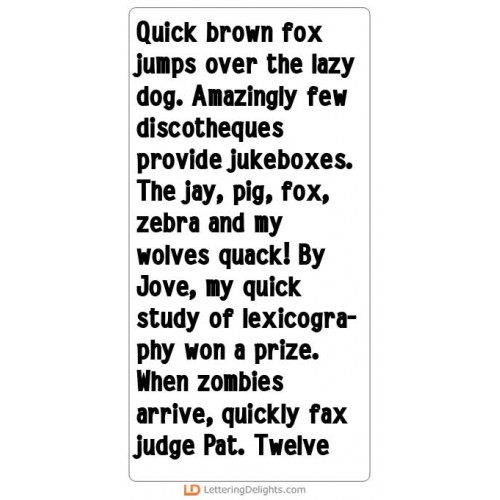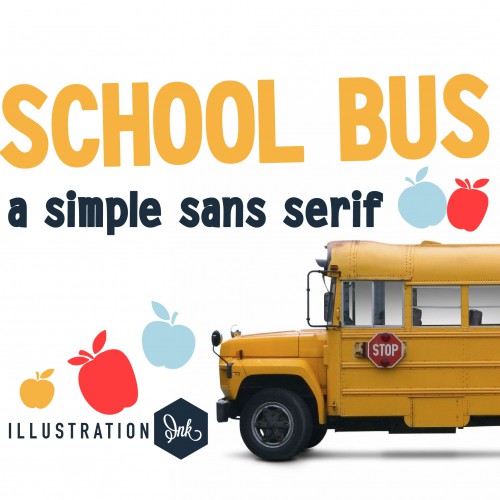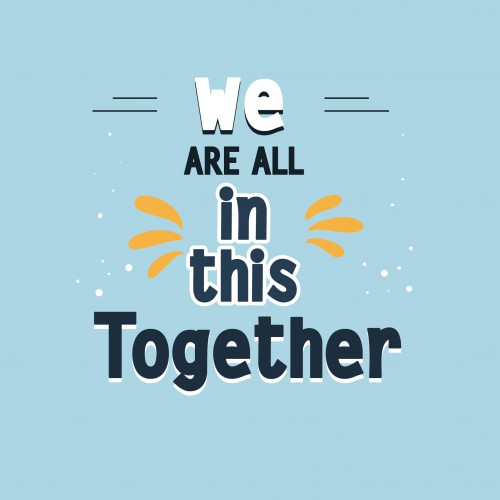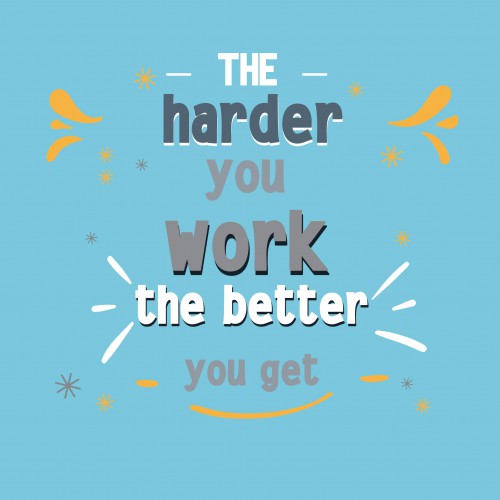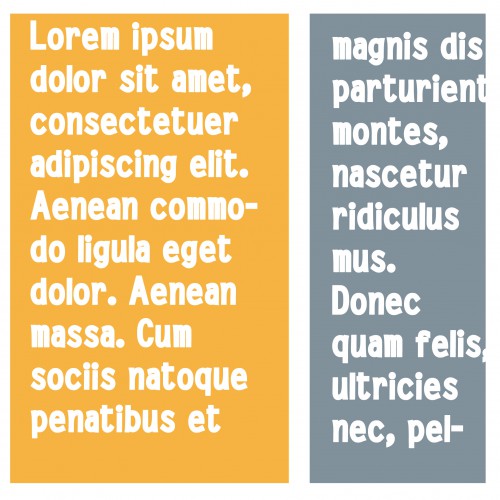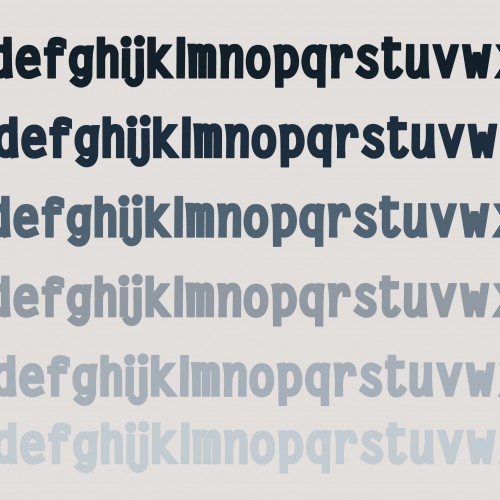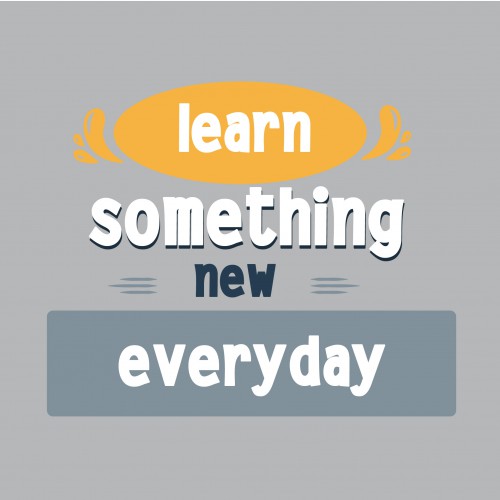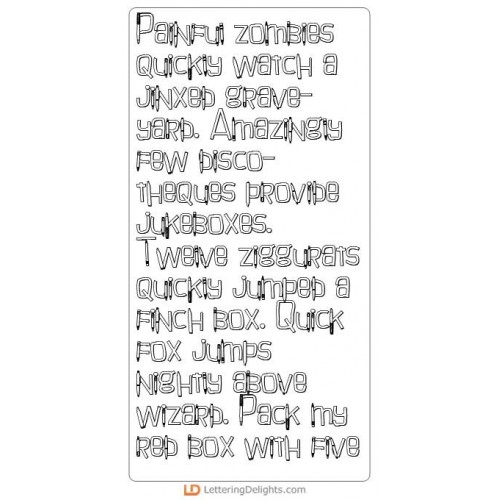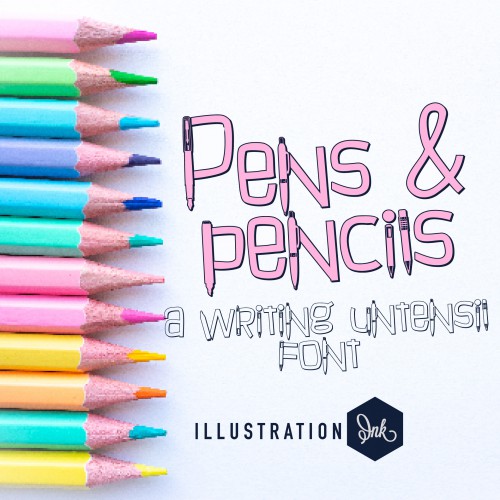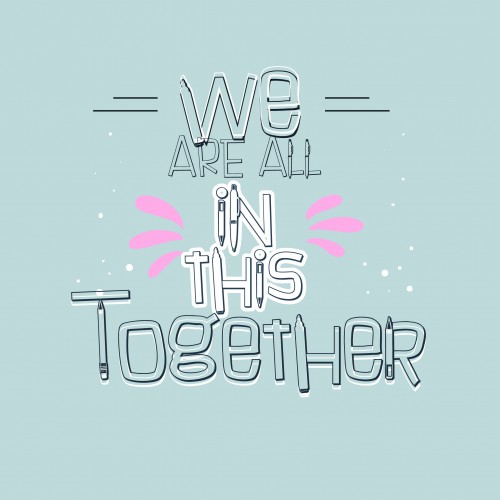
School's Out - Font Bundle
ZP School Bus Bold - FN
This bold sans serif is the same font that the use in uppercase on school buses...
ZP Pens and Pencils 3D - FN
This hand-written font features a variety of pens and pencils throughout and an added 3d shadow...
PN McPencil No 2 - FN
This hand-crafted font features No. 2 pencils throughout...
PN Crayonz 3D - FN
This hand-crafted font is heavily influenced by crayons and has a 3d shadow...
PN Last Day - FN
This hand-crafted serif font features apples, crayons, and school supplies...
PN More Apple for Teacher - FN
This retro serif font features apples and apple leaves througout...
ZP Schoolbook Black - FN
This big bold hand-written print is the easy, elementary school print we learned in grade school man..
PN Homeschool Doodle Too - FN
This hand-crafted font features doodles of school supplies within each letter and 3d shadows through..
ZP Say Cheese - FN
This hand-written serif is a whimsical and fun font with no descenders in the lowercase...
PN Robotix 3D - FN
This sans serif font features a rectangular "o" and a big thick, cuttable shadow...
ZP Crosswords - FN
This fun sans serif font is filled with crosswords...
ZP Brick Blocks 3D - FN
This 3d font features lettering that looks like it was made out of interlocking building blocks...
ZP Marvel Brothers Outline - FN
This blocky sans serif has a videogame feeling to it..
ZP Brick Print 3D - FN
This hand-crafted sans serif print is all uppercase but with an lowercase with a double outline and ..
PN Ms Pog Champ - FN
This video-game styled font has a bit of a shadow..
PN Jeopardize - FN
This hand-crafted font is a crafty version of a popular game show font...
ZP Outer Space Invaders 3D - FN
This fun, futuristic font features very spaced-out lettering with a 3d shadow. Font includes several..
PN Pixelcraft Spot - FN
This pixel font has little missing pixels throughout...
PN Kick It - FN
This very crafty font features a lot of angles...
ZP Schoolhouse Bold - FN
This cute, hand-crafted sans serif is a bit youthful and chunky...